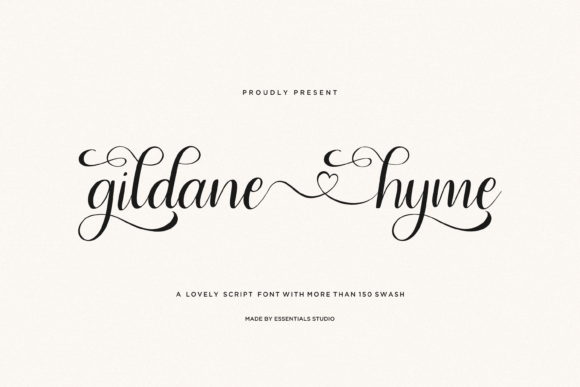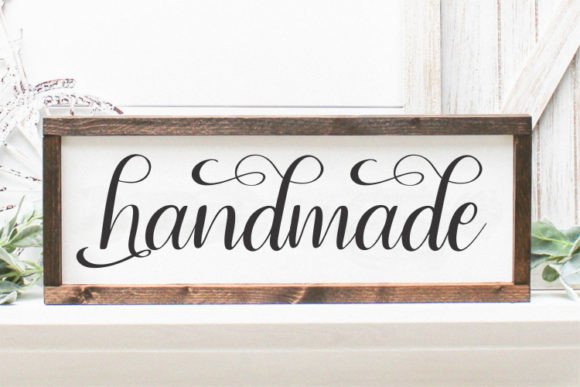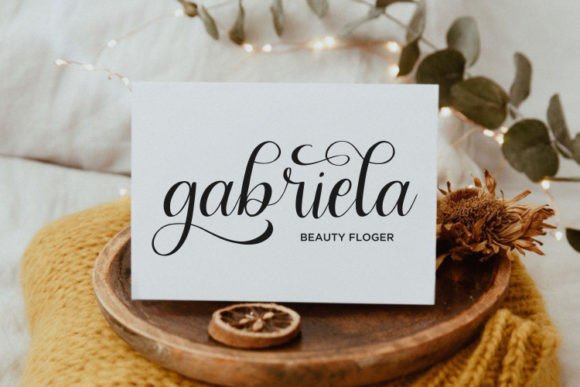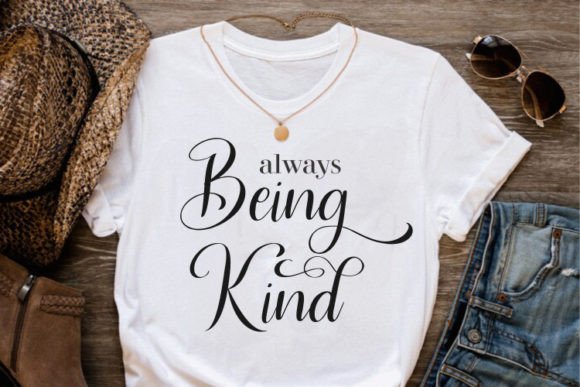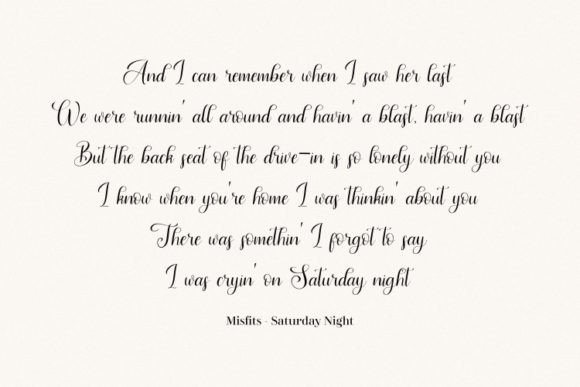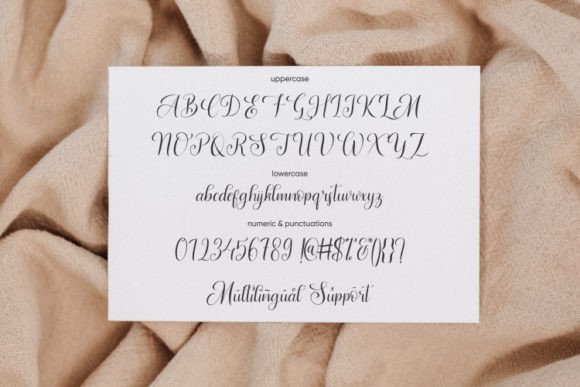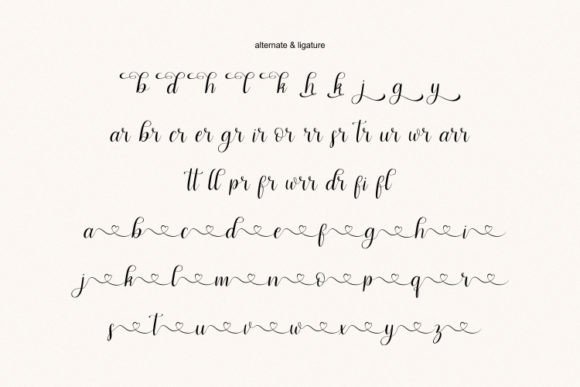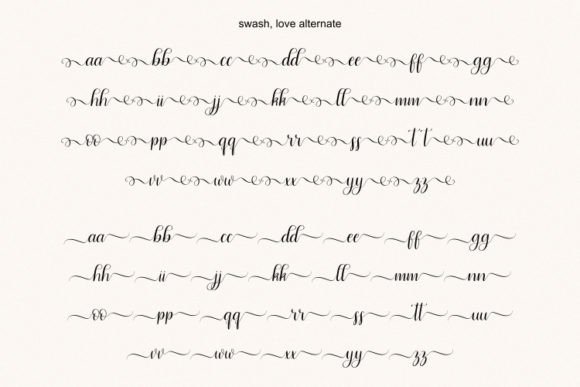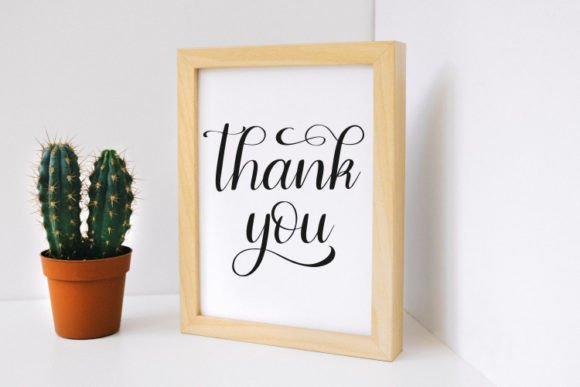
Gildane Hyme Font
The Gildane Hyme Font Download is a dazzling script typeface designed with care and precision. With neatly crafted letters and detailed strokes, this handwritten font brings elegance and personality to your creative projects. Because it is PUA encoded, you can easily access all glyphs, swashes, and ligatures, making customization effortless and enjoyable.
A Dazzling Script with Elegance
Gildane Hyme combines classic handwritten beauty with a detailed modern script style. Unlike plain fonts, this Gildane Hyme script font captures attention with its sophistication and balance. As a result, it is suitable for projects where style and readability must work together.
Elegant handwritten fonts always shine in event stationery. The Gildane Hyme Font is perfect for wedding invitations, greeting cards, thank you notes, and holiday announcements. Moreover, its graceful design ensures each word looks heartfelt and romantic.
Branding and Packaging with Gildane Hyme Font
Typography plays a vital role in creating memorable brand identity. The Gildane Hyme handwritten font works beautifully for boutique logos, product packaging, and promotional campaigns. In addition, its detailed strokes give your brand a polished and professional appeal.
Posters, Quotes, and Display Designs
The Gildane Hyme Font Download is ideal for larger projects such as posters, flyers, magazine titles, and inspirational quotes. Therefore, it adapts seamlessly to both print and digital applications, staying stylish across all formats.
In today’s digital age, fonts must perform well across platforms. The Gildane Hyme typeface is an excellent choice for Instagram graphics, Pinterest designs, YouTube thumbnails, and blogs. Its dazzling handwritten form ensures your online presence feels creative and sophisticated.
Why Designers Choose Gildane Hyme Typeface
Designers appreciate fonts that balance artistry with function. Many script fonts become hard to read in small text, but the Gildane Hyme handwritten script remains legible while keeping its elegant details. This makes it a trusted option for professionals and hobbyists alike.
Add Dazzling Elegance to Your Projects Today